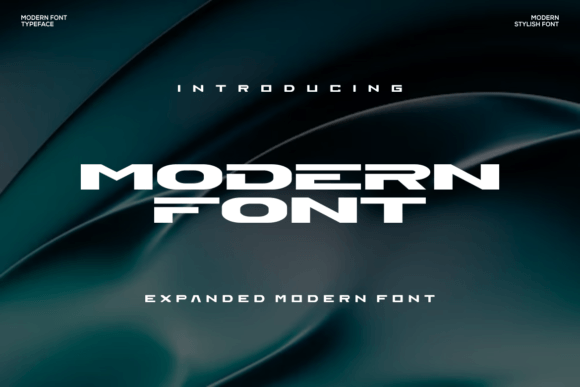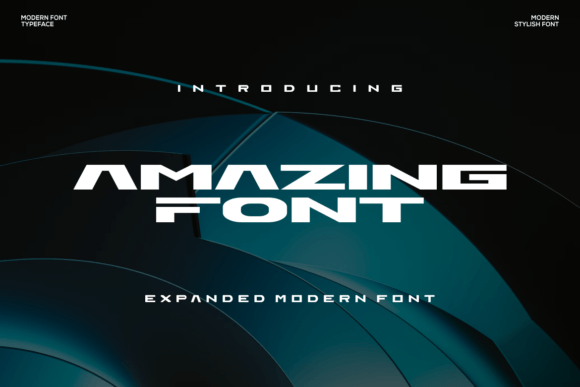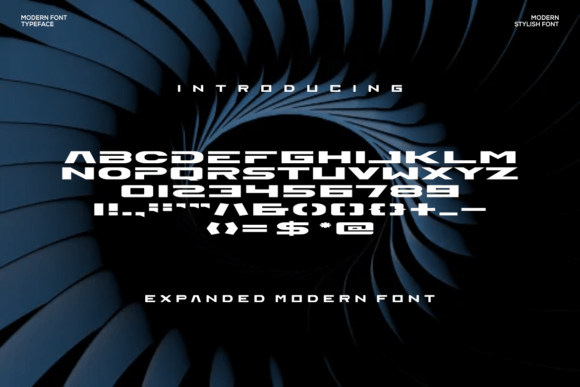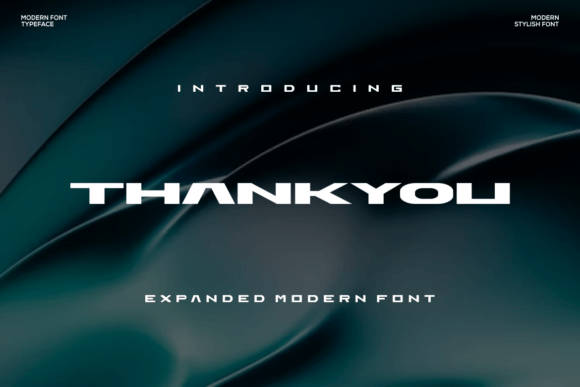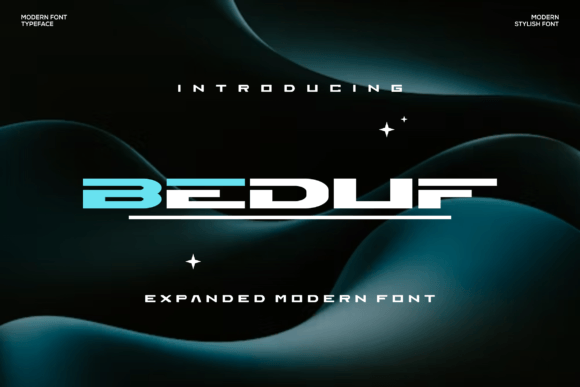
Introducing Beduf Font: The Modern Display Font for Bold Designs
Are you tired of using the same old fonts for your branding projects? Look no further! We’re excited to introduce Beduf Font, a modern display font that’s perfect for creating bold and authentic designs. In this article, we’ll dive into the features and benefits of Beduf Font, and explore how it can elevate your branding projects to the next level.
What is Beduf Font?
Beduf Font is a bold and authentic display font that’s designed to make a statement. With its unique and modern style, it’s perfect for any branding project that requires a touch of sophistication and elegance. Whether you’re creating a logo, t-shirt design, or promotional product, Beduf Font is the perfect choice.
Key Features of Beduf Font
• Bold and Authentic: Beduf Font is designed to be bold and authentic, making it perfect for creating eye-catching designs that stand out from the crowd.
• Modern Style: With its modern style, Beduf Font is perfect for creating designs that are fresh and contemporary.
• Versatile: Beduf Font is versatile and can be used in a variety of contexts, from logos and t-shirt designs to promotional products and more.
• Easy to Read: Despite its bold style, Beduf Font is easy to read, making it perfect for creating designs that are both visually appealing and legible.
Benefits of Using Beduf Font
So, why should you choose Beduf Font for your branding projects? Here are just a few benefits of using this amazing font:
• Stand Out from the Crowd: With Beduf Font, you can create designs that stand out from the crowd and grab attention.
• Professional Look: Beduf Font gives your designs a professional look that’s perfect for businesses and brands.
Use Cases for Beduf Font
Beduf Font is perfect for a variety of branding projects, including:
• Logos: Create a bold and authentic logo that stands out from the crowd.
• T-Shirt Designs: Design eye-catching t-shirts that make a statement.
• Promotional Products: Create promotional products that are both visually appealing and effective.
• Signage: Use Beduf Font to create signage that’s both bold and easy to read.
Tips for Using Beduf Font
Here are a few tips for using Beduf Font to create amazing designs:
• Use it Boldly: Beduf Font is designed to be used boldly, so don’t be afraid to experiment with different sizes and styles.
• Pair it with Other Fonts: Beduf Font pairs well with other fonts, so try experimenting with different combinations to create a unique look.
• Experiment with Colors: Beduf Font looks great in a variety of colors, so try experimenting with different color schemes to create a design that’s both visually appealing and effective.
In conclusion, Beduf Font is a modern display font that’s perfect for creating bold and authentic designs. With its unique and modern style, it’s perfect for any branding project that requires a touch of sophistication and elegance. Whether you’re a designer or crafter, Beduf Font is a must-have font solution that’s sure to elevate your designs to the next level.